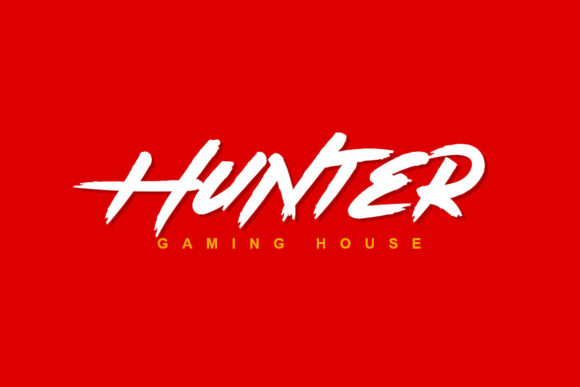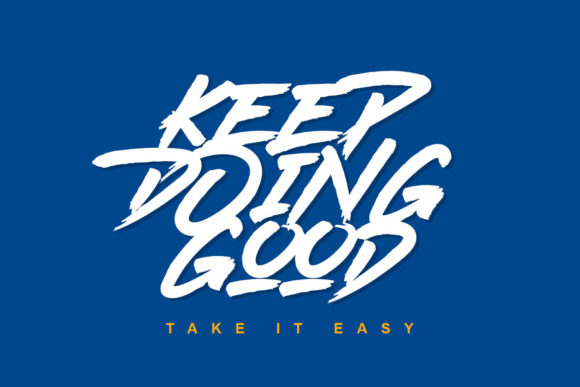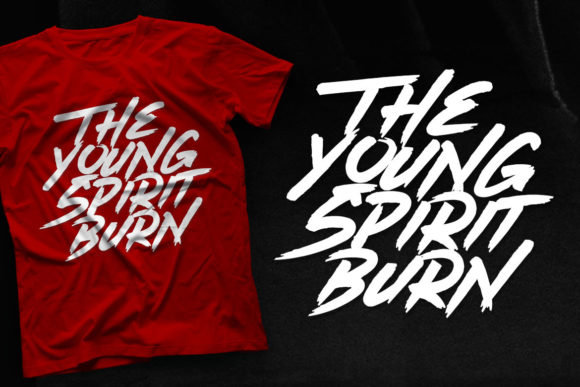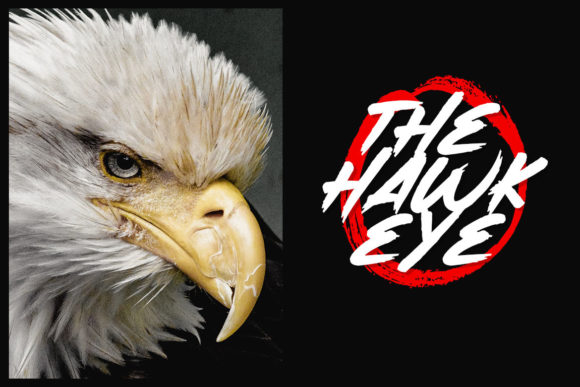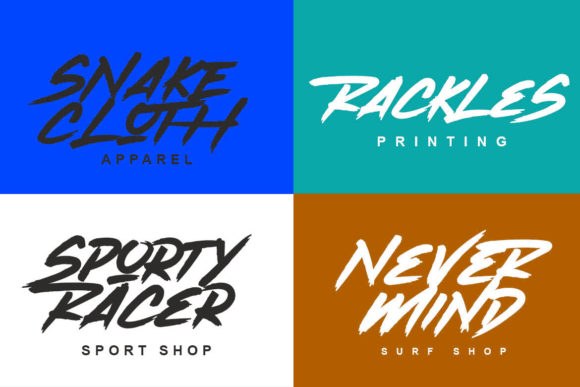
Introduction to Rumble Sailor Font
Do you ever get that spark of creativity when you stumble upon a design that makes you feel like you’re walking down a vibrant street art alley? For many designers, that moment is what drives them to push the boundaries of their work. And that’s exactly what we’re going to explore in this article – the Rumble Sailor Font, a bold and eye-catching display font that’s perfect for bringing your creative project to life.
As a valuable design resource, Rumble Sailor Font offers a high-quality, free download that can elevate your designs to the next level. With its transparent background and street art vibe, this font is ideal for logos, advertisements, clothing, and sportswear – anywhere you need to make a statement. Whether you’re working on a personal project or a client-based design, Rumble Sailor Font is a must-have in your toolkit.
- High-quality design resource with a unique, handwritten style perfect for creative projects.
- Unique characteristics include a mix of rough and smooth textures, adding depth and visual interest to designs.
The Rumble Sailor Font is perfect for those who want a unique and eye-catching font. Its distressed texture and rugged feel make it ideal for projects that require a vintage or retro vibe. ✨ One of the standout features of this font is its transparent background, which allows for seamless integration with any design element.
- Unique and eye-catching distressed texture
⚠️ One limitation of the Rumble Sailor Font is that it may not be suitable for all types of projects. Its rugged feel may not be ideal for projects that require a clean and minimalist look. Additionally, the font may not be as versatile as some other fonts on the market.
Overall, I’m impressed with the Rumble Sailor Font and would recommend it to designers who are looking for a unique and high-quality font. With its transparent background and distressed texture, it’s a great addition to any design resource collection.
The Rumble Sailor Font is a free design resource ideal for creative projects requiring a unique touch. With its high quality and transparent background, it’s perfect for backgrounds, text overlays, and other design elements.
To get the most out of the Rumble Sailor Font, try combining it with other design elements, such as textures and patterns. Experiment with different font sizes, colors, and styles to create unique and eye-catching designs.
The Rumble Sailor Font is ideal for a variety of creative projects, including:
- Designing logos and branding materials
- Creating social media graphics and posts
- Developing marketing materials and presentations